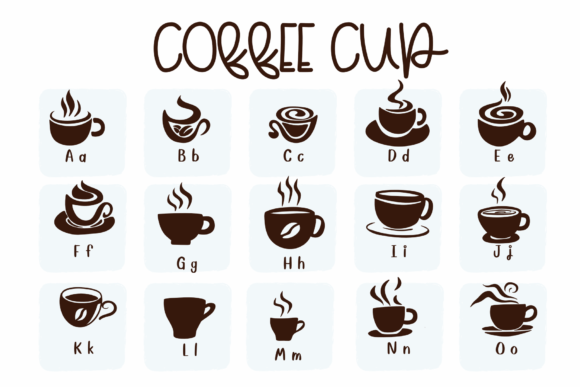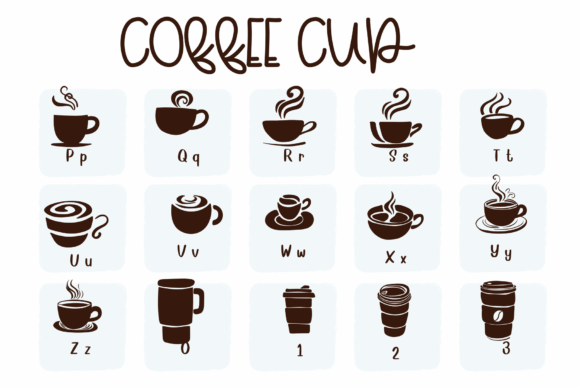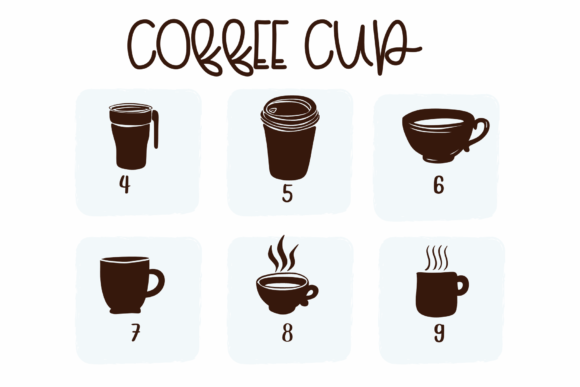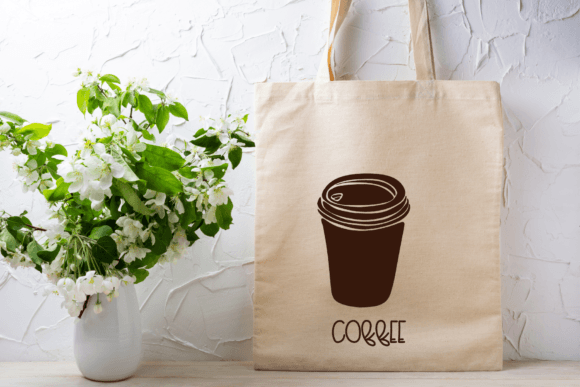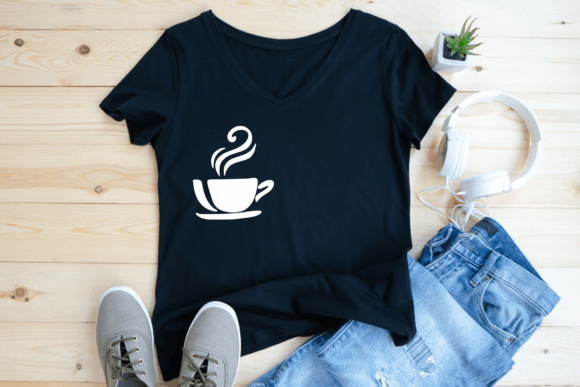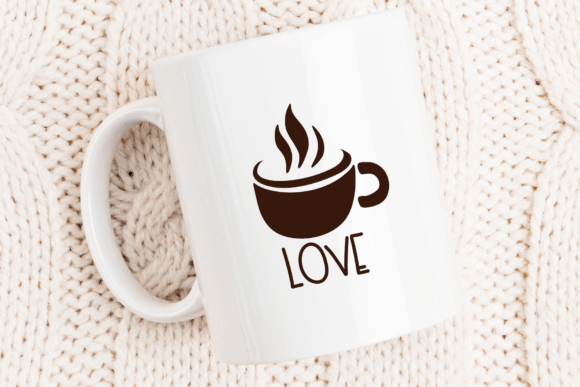
Coffee Cup Font: A Fun and Creative Dingbat Font for Your Projects
Are you a designer, crafter, or DIY enthusiast looking for a unique and fun font to add a personal touch to your creative projects? Look no further than the Coffee Cup Font, a delightful dingbat font that is sure to inspire your imagination. In this article, we’ll explore the features and benefits of this charming font, and show you how it can enhance your wedding invitations, DIY projects, crafts, decorations, logos, and many other creative ideas.
What is Coffee Cup Font?
Coffee Cup Font is a dingbat font that features adorable coffee cup illustrations, complete with saucers and steam rising from the top. The font is designed to be fun, playful, and whimsical, making it perfect for projects that require a touch of personality. With its unique and eye-catching design, Coffee Cup Font is sure to stand out from the crowd and add a smile to your audience’s faces.
Features of Coffee Cup Font
- Unique Illustrations: Coffee Cup Font features beautiful, hand-drawn coffee cup illustrations that are sure to delight.
- Scalable: Coffee Cup Font is scalable, allowing you to use it for a wide range of projects, from small crafts to large-scale designs.
- Versatile: This font can be used for a variety of projects, including wedding invitations, DIY crafts, decorations, logos, and more.
Benefits of Using Coffee Cup Font
So why choose Coffee Cup Font for your creative projects? Here are just a few benefits of using this delightful font:
- Adds Personality: Coffee Cup Font adds a touch of personality to your projects, making them more engaging and memorable.
- Creates a Theme: The coffee cup illustrations in this font create a fun and cohesive theme for your projects, tying everything together.
- Inspires Creativity: The playful design of Coffee Cup Font is sure to inspire your creativity, helping you to come up with new and innovative ideas.
Ideas for Using Coffee Cup Font
So what can you create with Coffee Cup Font? Here are just a few ideas to get you started:
- Wedding Invitations: Use Coffee Cup Font to create adorable wedding invitations that set the tone for a fun and playful celebration.
- DIY Crafts: Add a personal touch to your DIY crafts, such as party decorations, gift tags, and more.
- Decorations: Use Coffee Cup Font to create custom decorations, such as banners, garlands, and signs.
- Logos: Create a unique and memorable logo for your business or brand using Coffee Cup Font.
- Stationery: Add a touch of whimsy to your stationery, such as notebooks, journals, and greeting cards.
Tips for Using Coffee Cup Font
Here are a few tips for getting the most out of Coffee Cup Font:
- Experiment with Colors: Try pairing Coffee Cup Font with different colors and textures to create a unique look.
- Mix and Match: Combine Coffee Cup Font with other fonts and illustrations to create a one-of-a-kind design.
- Keep it Simple: Don’t be afraid to keep things simple and use Coffee Cup Font on its own for a clean and elegant look.